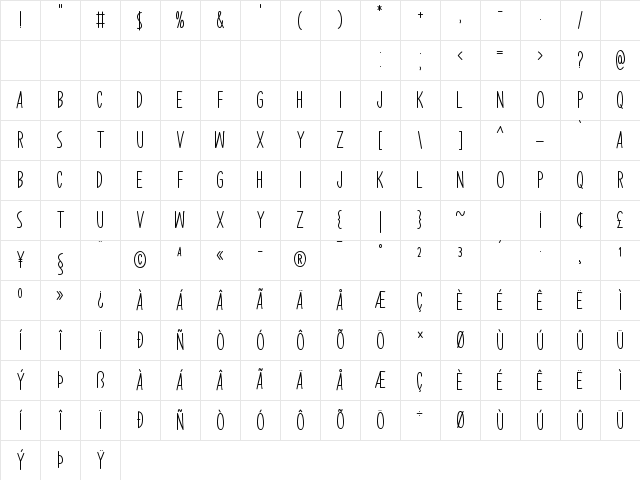
Panda Couple Regular Free Font
Panda Couple Regular
Foundry: Seemly Fonts
Design Context for Panda Couple
Panda Couple is a composed and adaptable typeface that performs quietly and consistently across a wide range of design contexts.